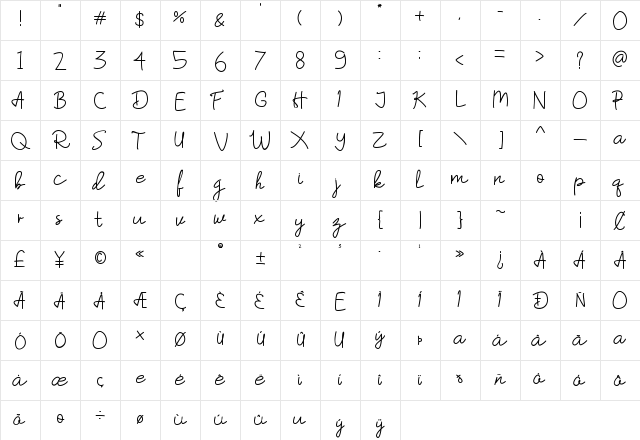
Hummingbird-Regular Regular
| Foundry | Wellscript Studio Co. |
| Designer | Welianto |
Design Context for Hummingbird-Regular Typeface
Hummingbird-Regular takes a measured approach to typography — its balanced proportions and neutral character make it a reliable workhorse for both digital and print work.